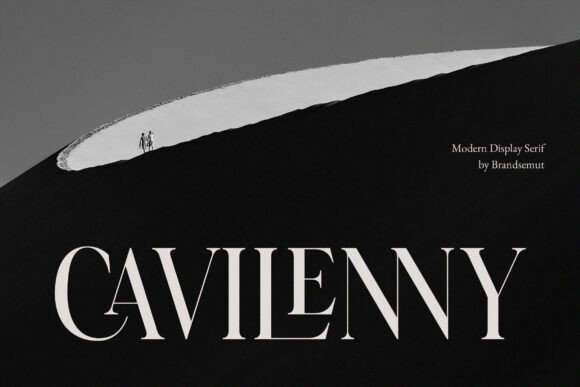
Introducing Cavilenny Modern Display Serif Font
In the world of typography, a good font can make all the difference in elevating a design project from ordinary to extraordinary. For designers and crafters looking for a modern and classy typeface to add a touch of sophistication to their work, look no further than Cavilenny Font. This stunning display serif font is perfect for headings, logos, branding, magazines, product packaging, and invitations, and is sure to become a go-to choice for anyone looking to add a dash of elegance to their designs.
Clean Lines and Smooth Curves
One of the standout features of Cavilenny Font is its clean lines and smooth curves. This beautiful typeface has been carefully crafted to provide a crisp and refined look that is perfect for a wide range of design applications. Whether you’re looking to create a bold and eye-catching headline or a more subtle and sophisticated logo, Cavilenny Font has the versatility to deliver. Its smooth curves add a touch of softness and elegance, making it perfect for designs that require a more refined and cultured look.
Perfect for Display and Headings
Cavilenny Font is specifically designed as a display serif font, making it perfect for use in headings, titles, and other display text. Its bold and confident lines make it ideal for grabbing attention and drawing the eye, while its elegant curves add a touch of sophistication and refinement. Whether you’re designing a magazine, a brochure, or a website, Cavilenny Font is sure to make a lasting impression.
Branding and Logo Design
In addition to its use in display text, Cavilenny Font is also perfect for branding and logo design. Its unique and elegant design makes it an excellent choice for creating a memorable and distinctive brand identity. Whether you’re looking to create a logo for a new business or rebrand an existing one, Cavilenny Font is sure to help you create a lasting impression. Its clean lines and smooth curves make it easy to read and recognize, even at small sizes, making it perfect for use on business cards, letterheads, and other marketing materials.
Magazines and Product Packaging
Cavilenny Font is also an excellent choice for use in magazines and product packaging. Its elegant design and refined lines make it perfect for use in titles, headings, and other display text, while its smooth curves add a touch of sophistication and glamour. Whether you’re designing a fashion magazine or a product package, Cavilenny Font is sure to add a touch of class and elegance to your design.
Invitations and Special Events
Finally, Cavilenny Font is also perfect for use in invitations and special events. Its elegant design and refined lines make it an excellent choice for wedding invitations, party invitations, and other special event materials. Its smooth curves add a touch of sophistication and glamour, making it perfect for formal events and occasions.
Key Features of Cavilenny Font
- Modern and classy typeface
- Clean lines and smooth curves
- Perfect for display and headings
- Excellent for branding and logo design
- Suitable for magazines and product packaging
- Ideal for invitations and special events
In conclusion, Cavilenny Font is a stunning modern display serif font that is perfect for designers and crafters looking to add a touch of elegance and sophistication to their work. Its clean lines and smooth curves make it an excellent choice for a wide range of design applications, from headings and logos to branding and product packaging. With its versatility and refined design, Cavilenny Font is sure to become a go-to choice for anyone looking to elevate their designs to the next level.